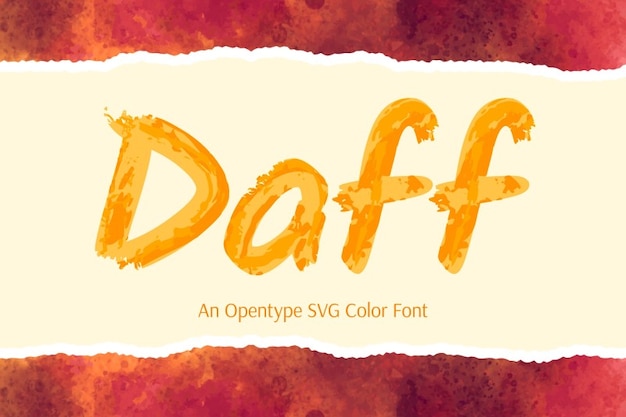
Daff
Daff Font
Daff font dances like brush strokes on canvas, embodying a handwritten charm with hints of watercolor. Its fluid lines and organic forms evoke artistic spontaneity. Perfect for designs seeking a personal touch, Daff infuses typography with the warmth and authenticity of handcrafted art, inviting creativity to flow freely with every letter.